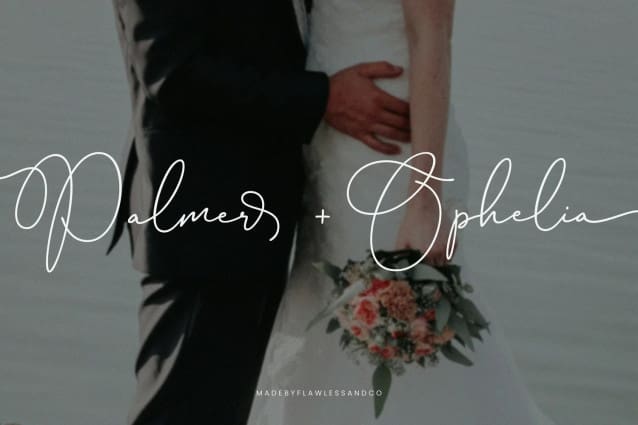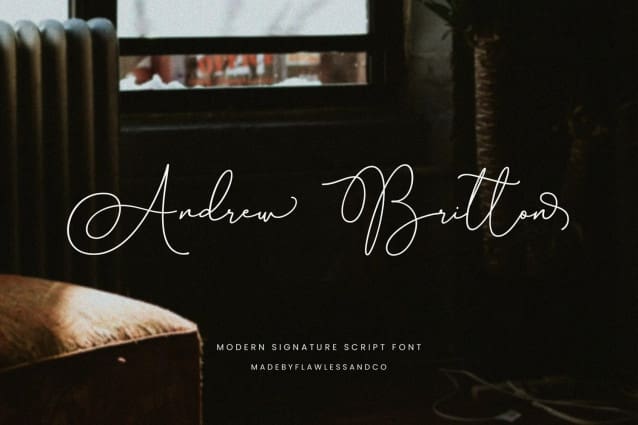
Andrew Britton Font
Andrew Britton Font, a captivating signature script font meticulously crafted to exude elegance and timeless beauty, making it the perfect choice for your wedding invitations, stationery, and other special occasion materials. Inspired by the graceful flow of calligraphy, Andrew Britton adds a touch of sophistication and romance to your wedding designs, capturing the essence of your love story in a way that will leave a lasting impression.
There’s some connected letters and some alternates that suitable for any graphic designs such as branding materials, t-shirt, print, business cards, logo, poster, t-shirt, photography, quotes .etc